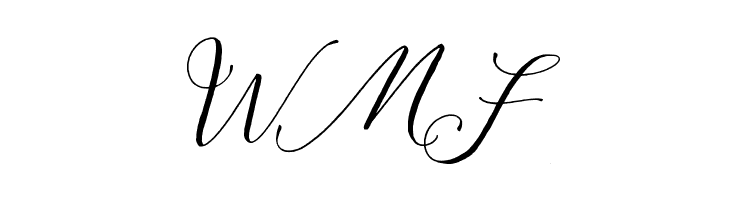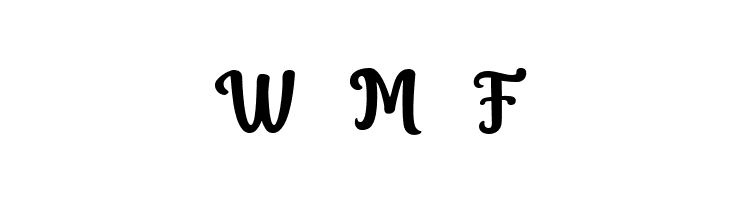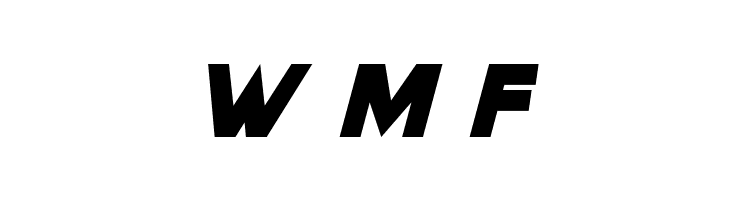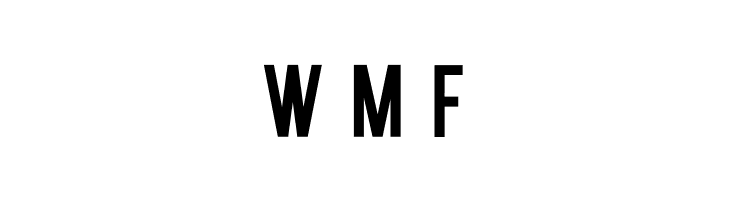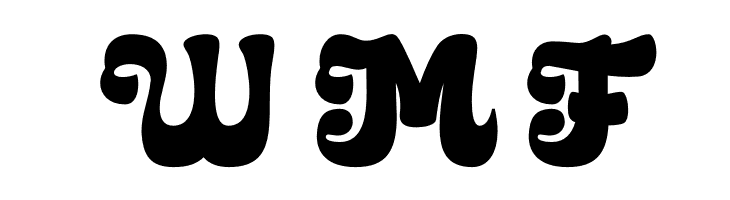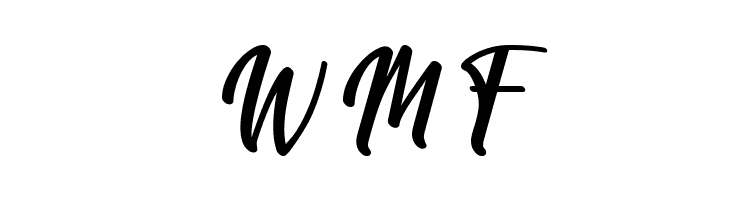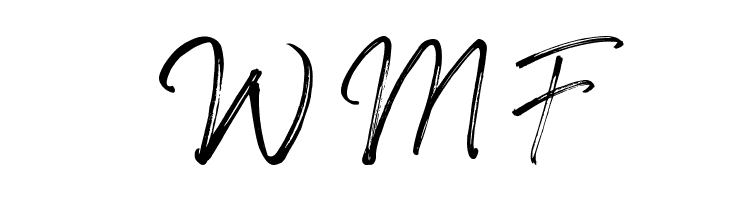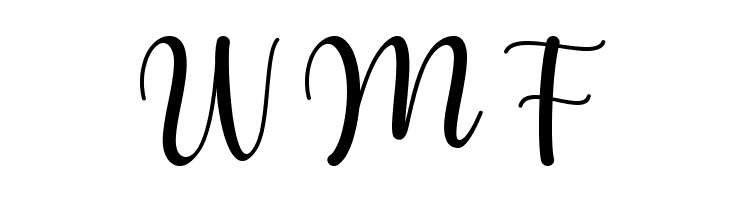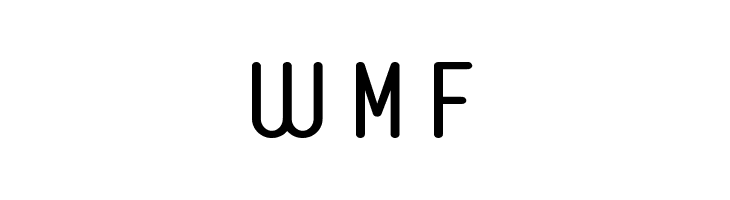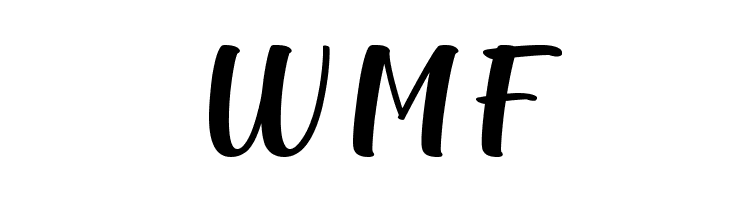
An elegant, cursive script font with intricate loops and swashes.
A bold, brush-style script font with dynamic and expressive strokes.
A modern, geometric font with clean lines and sharp angles.
A bold, high-contrast serif font with a vintage yet modern style.
A bold, high-contrast serif font with a classic yet modern appeal.
A bold, playful font with rounded, bubble-like forms and a dynamic, lively appearance.
A playful, bold font with smooth curves and decorative flair.
A playful, bold handwritten font with a casual and energetic style.
A bold, dynamic script font with interconnected letters and a strong presence.
A whimsical, cursive font with an artistic and flowing handwriting style.
A bold, energetic script font with a hand-painted, dynamic style.
A bold, geometric font with strong, uniform strokes and a modern aesthetic.
A bold, decorative font with a distressed, vintage texture.
A bold, modern font with a condensed and impactful design.
A bold, playful script font with rounded, connected letters.
A modern sans-serif font with geometric shapes and balanced proportions.
A modern, condensed, and decorative font with tall, narrow characters.
A bold, expressive script font with flowing, cursive letterforms.
A decorative script font with elegant loops and swirls.
A playful, artistic script font with a handwritten style and dynamic curves.
A dynamic, expressive script font with a natural handwritten style.
A flowing, cursive font with elegant, sweeping strokes and a handwritten appearance.
A bold, flowing script font with interconnected characters and a modern twist.
An elegant and flowing script font with smooth, cursive letterforms.
A flowing, cursive script font with elegant loops and swashes.
A bold, expressive script font with flowing, cursive letterforms.
A modern, rounded font with a clean and approachable design.
A bold, flowing script font with a modern and elegant style.
An elegant script font with ornate uppercase and flowing lowercase letters.
A dynamic and elegant script font with flowing, cursive letterforms.
An elegant, flowing script font with sophisticated curves and flourishes.
A graceful script font with elegant loops and swashes, reminiscent of classic calligraphy.